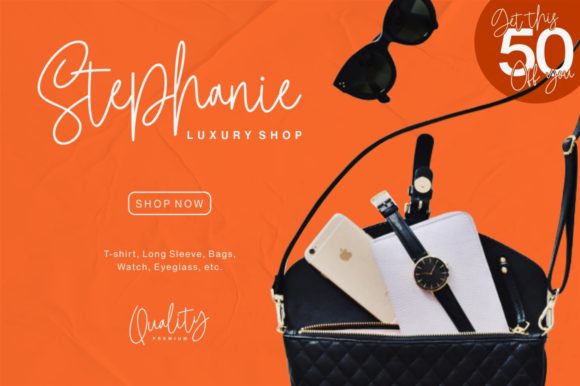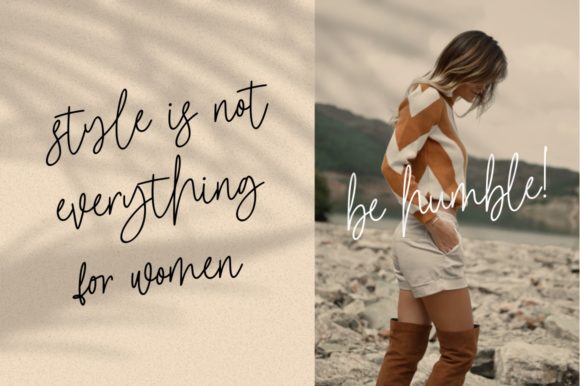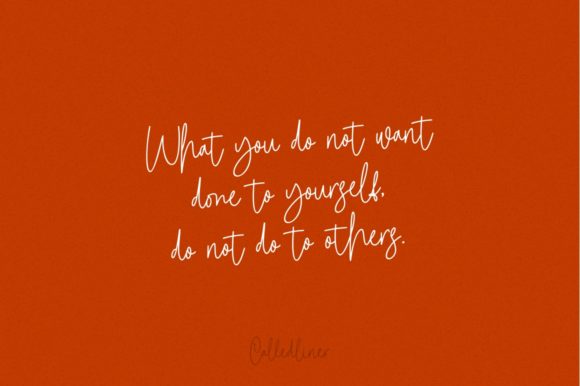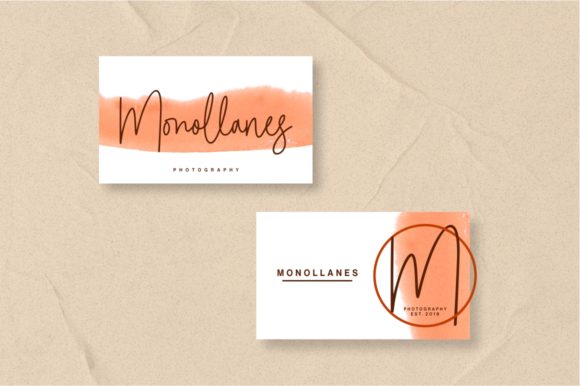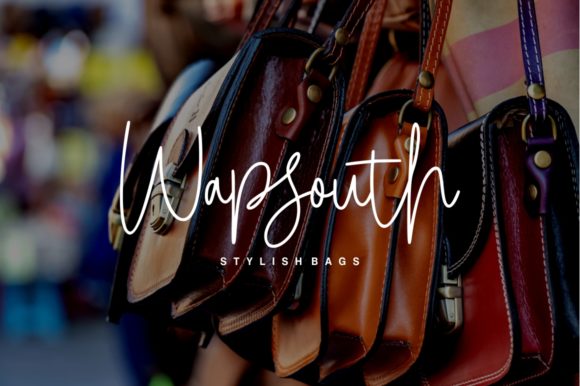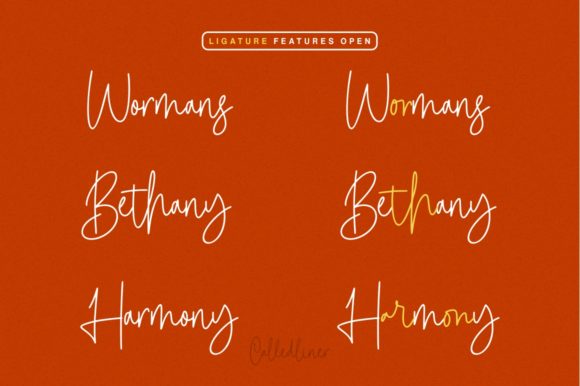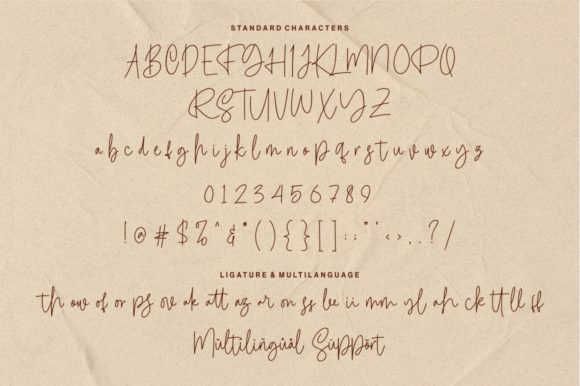
HomeScript FontsCalledliner Font Script Fonts Calledliner Font FacebookXPinterestWhatsApp Calledliner Font Poster 2 Calledliner Font Poster 3 Calledliner Font Poster 4 Calledliner Font Poster 5 Calledliner Font Poster 6 Calledliner Font Poster 7 Calledliner Font Poster 8 About Calledliner Font Calledliner is a sweet and simple script with an authentic vibe. DOWNLOAD NOW People also explored Story Ghosting Font ComicSons Font Cowboy Wanted Font Sultana Font Hello Monday Font Divine Light Duo Font Waterfall Font Sustiegraphy Font Quahog BB 338 0 TagsCalledliner Font Previous articleShopping FontNext articleRusseline Font LEAVE A REPLY Cancel reply Comment: Please enter your comment! Name:* Please enter your name here Email:* You have entered an incorrect email address! Please enter your email address here Website: Save my name, email, and website in this browser for the next time I comment. Personal Use Free Soulties Personal Use Free Read more about this font Lemon Milk Font Personal Use Free Read more about this font Rise of Kingdom Personal Use Free Read more about this font Unispace Personal Use Free Read more about this font BLOG How to Cut Any Font on Cricut: Convert a Font to SVG (Free) Turn any font into a clean SVG so it cuts crisp on Cricut - a quick 3-step workflow using a free font-to-SVG tool. Free Fonts Risk: Why Free Fonts Can Be Dangerous for Designers Free vs Paid Fonts: Why Investing in Premium Fonts Is Worth It Exploring Font Trends